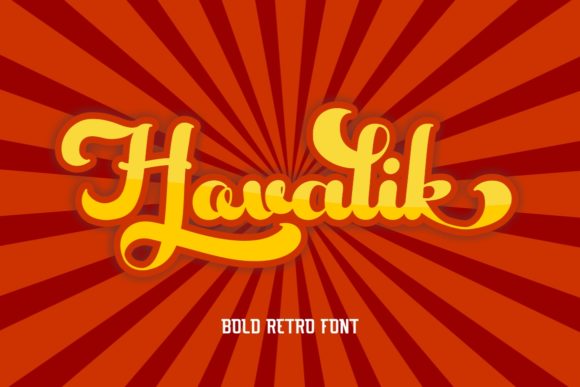
Step into a world of cinematic storytelling with Hovalik Font, a script font family that evokes a sense of playful nostalgia and an incredible vintage aesthetic. Created by the talented yunitaecy, Hovalik brings a unique retro vibe to any design concept.
Dive into the bygone era of classic cinema and let your imagination run wild. Hovalik's enchanting handwritten style adds a touch of magic to movie posters, capturing the essence of iconic films and leaving an indelible mark on your audience's minds.
With Hovalik, you'll be the director of your own visual masterpiece. Its flowing curves and charming imperfections create a sense of authenticity that resonates with viewers. Let Hovalik transport you to a golden age of cinema, where every stroke of the pen tells a story.
Whether you're designing posters for independent films, creating promotional materials for film festivals, or simply seeking a font that exudes character and charm, Hovalik is your perfect choice. Its versatility knows no bounds, and its ability to evoke emotion is unparalleled.
So, take center stage and let Hovalik be your leading actor. Its nostalgic allure will captivate your audience and leave them yearning for more. Don't settle for ordinary fonts; embrace the magic of Hovalik and let your designs shine brighter than a Hollywood premiere.